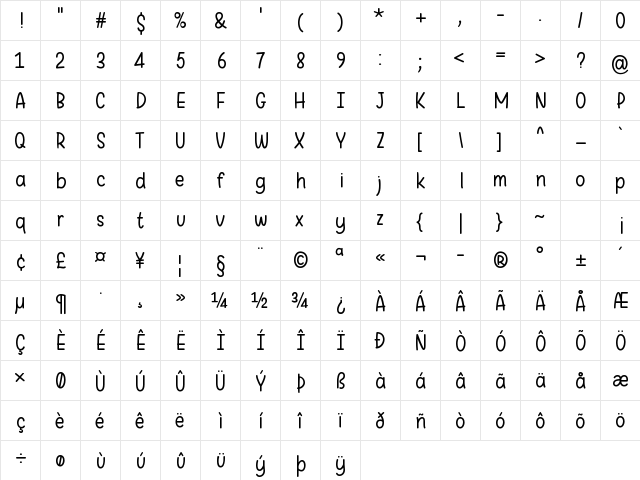
Warung Kopi Light Regular
| Foundry | 7NTypes |
| Designer | Situjuh Nazara |
Design Context for Warung Kopi Light Typeface
Warung Kopi Light is a composed and adaptable typeface that performs quietly and consistently across a wide range of design contexts. The delicate stroke weight brings airiness and refinement to layouts.